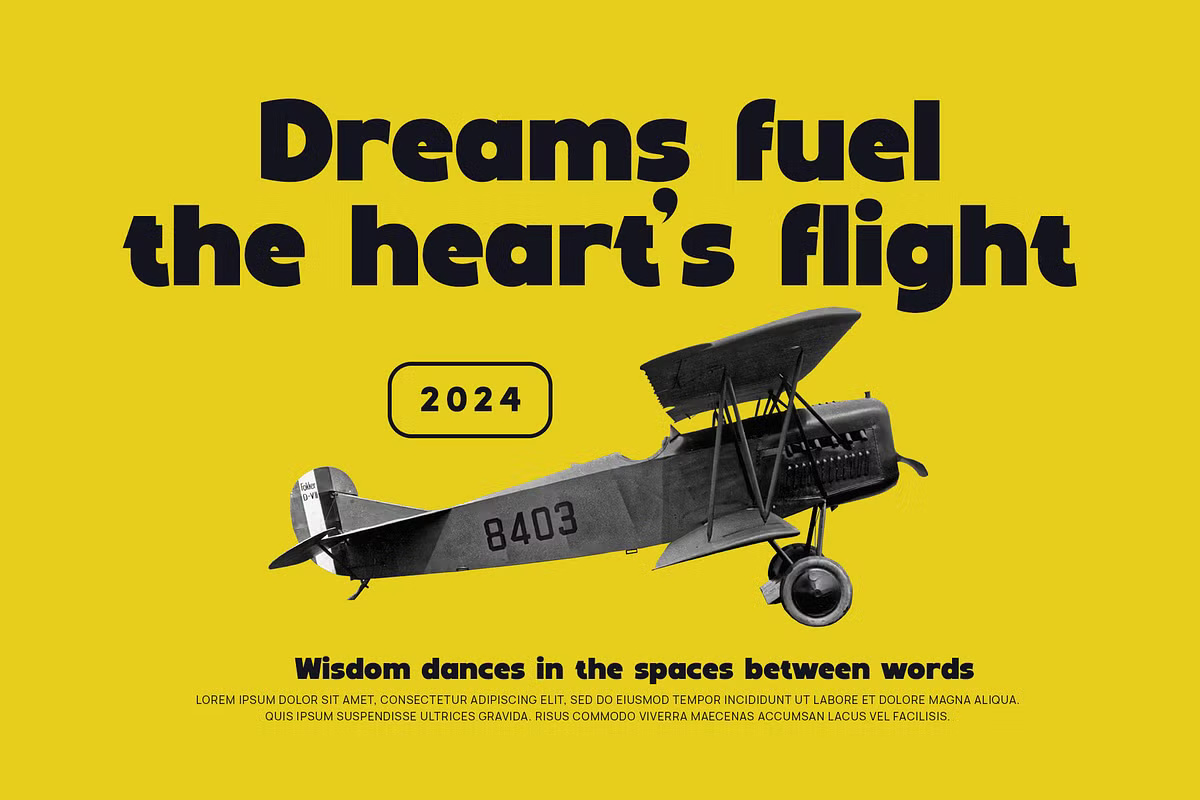
Guestar Font
Guestar is a bold, expanded sans-serif font designed for maximum impact. Perfect for logos, branding, headlines, and projects in the gaming, sports, or fitness industries, Guestar makes a strong and memorable statement.
Elevate your designs with Guestar and give your brand a powerful, modern edge.